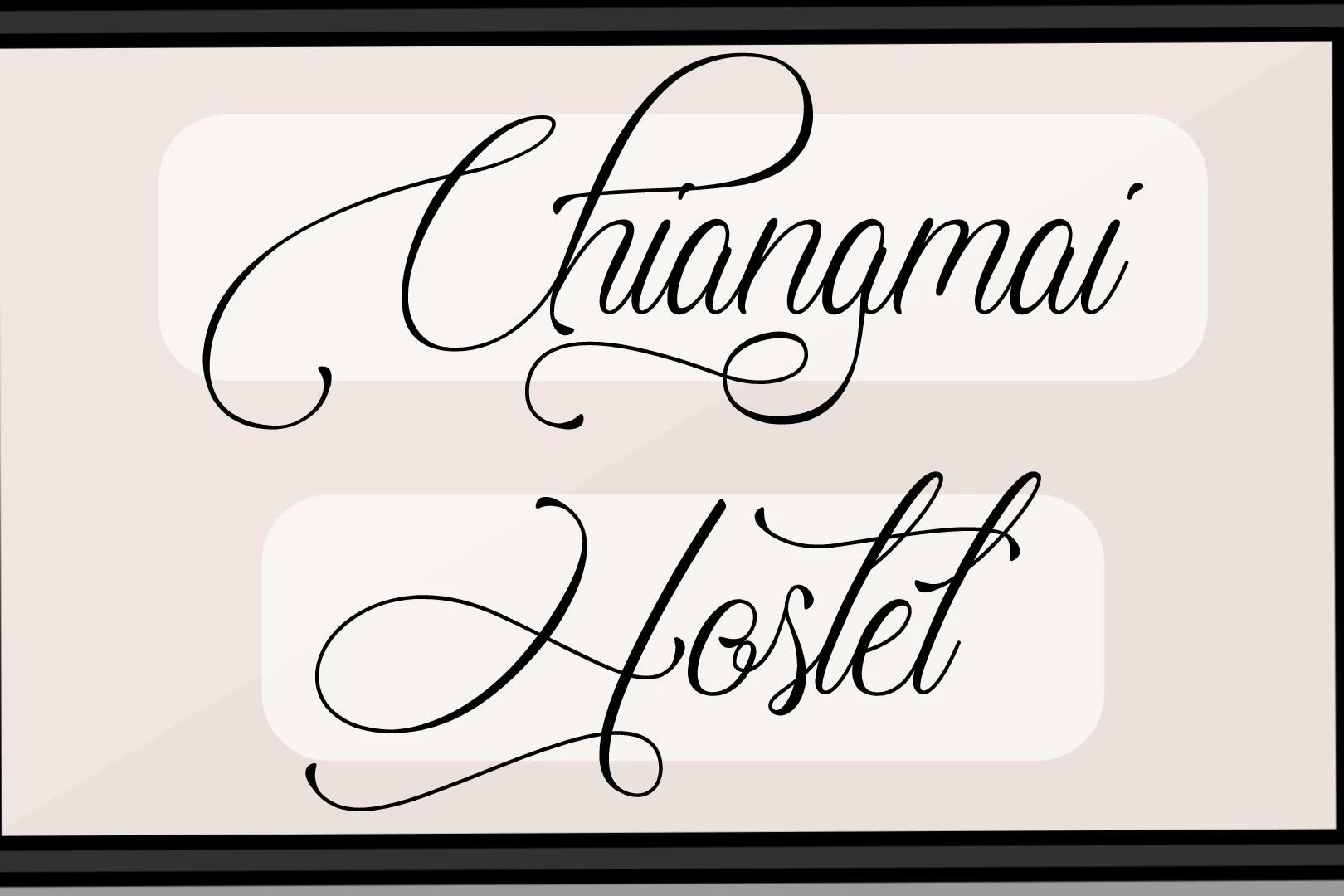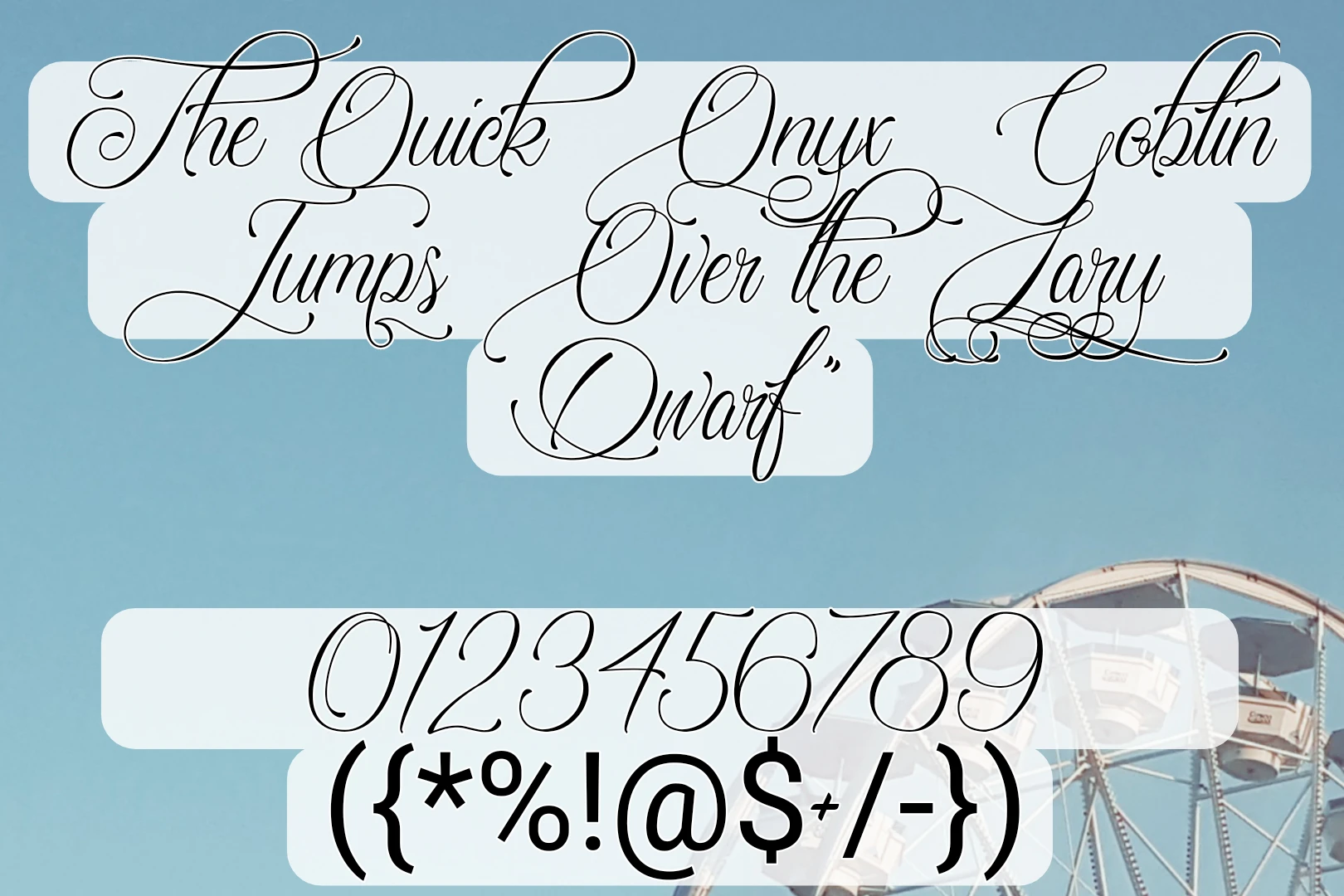
The Chiangmai Hostel font is a creation by Typhoon Type™ and the artistic vision of Suthi Srisopha, embodies the elegance and fluidity of calligraphy, offering a unique texture that sets it apart. With meticulous attention to detail, this font family captures the essence of handcrafted lettering, bringing a touch of sophistication and personal charm to any project.
The family boasts two stylish versions, namely condensed and medium, and comprises eight captivating styles, including regular, bold, light, and more. Its generator tool is especially useful for a variety of graphic design projects.
Chiangmai Hostel’s graceful strokes make it an ideal choice for invitations, wedding stationery, and other special event materials. The calligraphy texture adds a personalized and intimate feel to these important moments. Elevate your brand identity with the Chiangmai Hostel font. Its artistic flair can enhance logo designs, providing a distinctive and memorable visual representation for businesses that want to convey a sense of creativity and refinement.
For advanced projects, consider pairing this font with Gill Sans Font, taking advantage of its new texture. Thanks to its extensive language support, this font family finds use worldwide. In the education sector, it serves purposes such as student documents and notes. Moreover, it proves well-suited for crafting engaging social media posts and is suitable for large-scale projects. Notably, Microsoft has incorporated this typeface in Windows 10.
Bring editorial layouts to life by incorporating Chiangmai Hostel into magazine spreads, book covers, or article headings. The font’s unique texture adds visual interest and a sense of craftsmanship to printed materials.
Alternative Font to the Chiangmai Hostel Font
• Lavanderia Font:
• Style: Calligraphic, script
• Lavanderia is a beautiful script font with a classic, vintage vibe. Its flowing, cursive strokes give it an elegant and sophisticated appearance. It’s an excellent choice for projects that require a touch of romance or nostalgia.
• Great Vibes Font:
• Style: Script
• Great Vibes is a script font known for its graceful and formal look. It exudes a sense of luxury and is often used for invitations, wedding materials, and other upscale designs. The font’s intricate details make it visually appealing.
• Dancing Script Font:
• Style: Script
• Dancing Script is a modern and playful script font. Its casual yet stylish appearance makes it suitable for a variety of projects, including websites, branding, and creative displays. The font has a lively rhythm that adds energy to the text.
• Pacifico Font:
• Style: Handwriting, script
• Pacifico is a friendly and casual handwritten font. It has a relaxed and approachable feel, making it ideal for projects that aim to convey a sense of warmth and informality. Pacifico is often used in designs that want to evoke a laid-back, beachy vibe.
• Quicksand Font:
• Style: Sans-serif
• Quicksand is a clean and modern sans-serif font. Its simple and geometric design makes it versatile and suitable for a wide range of applications. Quicksand is known for its readability and contemporary aesthetic.
• Amatic SC Font:
• Style: Handwriting, sans-serif
• Amatic SC is a hand-drawn, sans-serif font with a friendly and informal character. It’s particularly well-suited for projects that require a handwritten touch while maintaining a clean and legible appearance. Amatic SC adds a personal feel to the text.
• Sacramento Font:
• Style: Calligraphic, script
• Sacramento is an elegant and contemporary script font. Its graceful strokes and balanced proportions make it suitable for a variety of design projects, from formal invitations to creative displays. Sacramento brings a refined and timeless quality to the text.
What is the Chiangmai Hostel font known for?
It was designed by Typhoon Type™ – Suthi Srisopha is renowned for its exquisite calligraphy texture. It captures the beauty and elegance of handcrafted lettering, making it a distinctive choice for various design projects.
It is particularly well-suited for projects that demand a touch of sophistication and personalization. It shines in applications such as invitations, stationery, logo design, artistic projects, social media graphics, and editorial layouts.